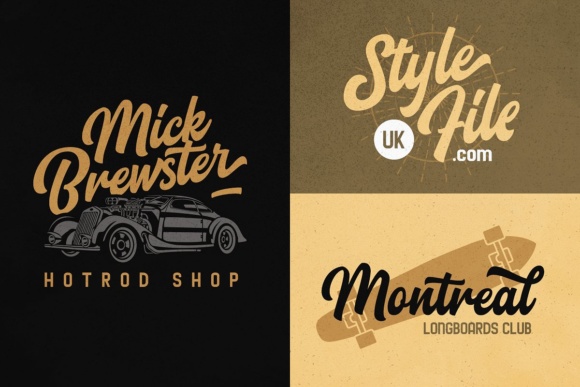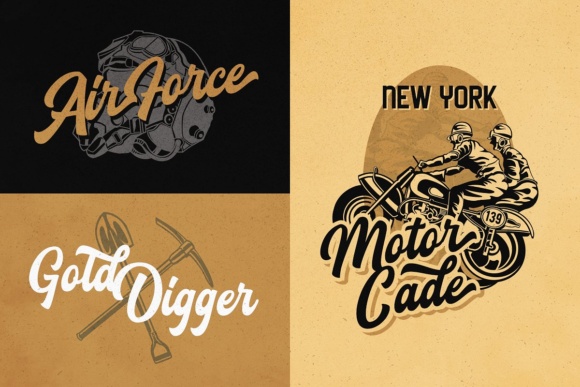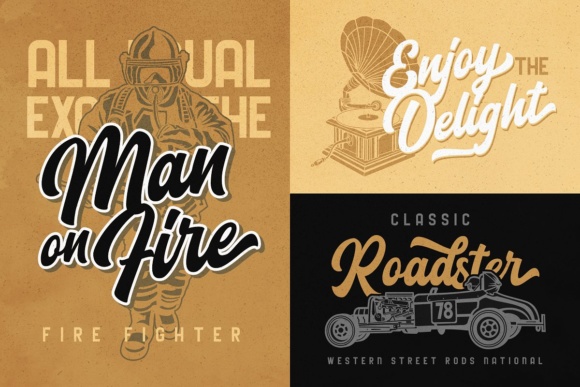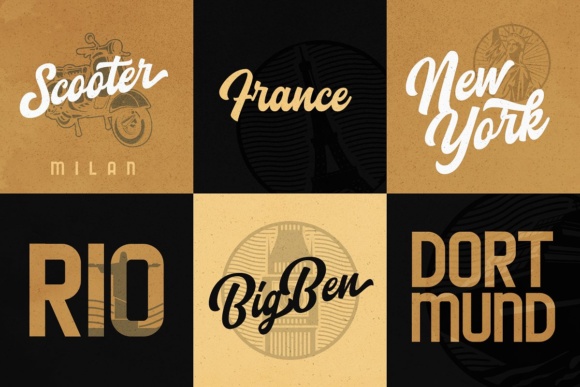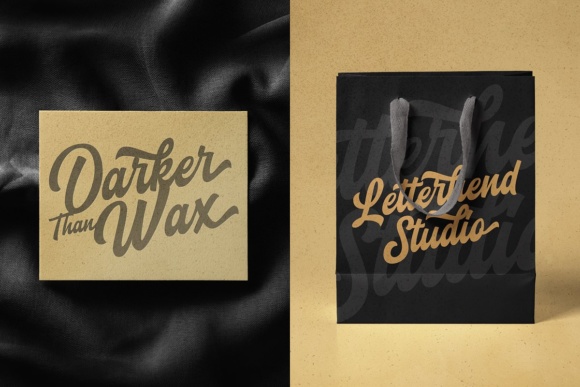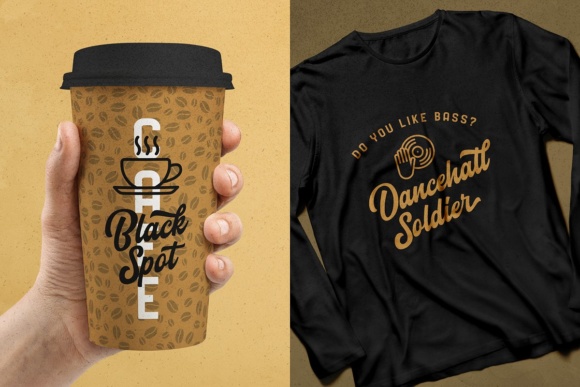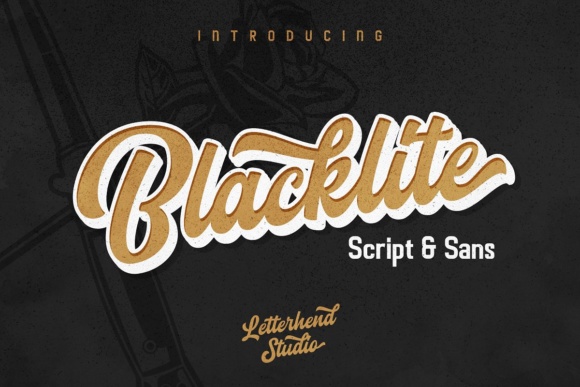
Introducing Blacklite Script Font: The Bold and Beautiful Choice for Designers and Crafters
Are you tired of using the same old fonts for your designs? Do you want to add a touch of elegance and sophistication to your projects? Look no further than the Blacklite Script Font! This stunning bold script font is perfect for making a statement and standing out from the crowd. In this article, we’ll take a closer look at the Blacklite Script Font, its features, and how you can use it to elevate your designs.
What is Blacklite Script Font?
Blacklite is a bold script font that is designed to make a statement. With its unique and elegant lettering style, it’s perfect for use as a logotype, badge, or label. The font features beautiful swashes and flourishes that add a touch of sophistication to any design. Whether you’re a designer, crafter, or DIY enthusiast, Blacklite Script Font is a great choice for anyone looking to add some personality to their projects.
Key Features of Blacklite Script Font
- Bold and Eye-Catching: Blacklite Script Font is a bold and eye-catching font that is sure to grab attention. Its unique lettering style and beautiful swashes make it perfect for use as a logotype or headline.
- Elegant and Sophisticated: The font features elegant swashes and flourishes that add a touch of sophistication to any design. It’s perfect for use on wedding invitations, business cards, and other formal documents.
- High-Quality Design: Blacklite Script Font is designed with high-quality and precision in mind. The font features clean lines, smooth curves, and precise kerning, making it perfect for use in both digital and print designs.
- Versatile: Blacklite Script Font is a versatile font that can be used in a variety of designs, from logos and branding to packaging and advertising.
How to Use Blacklite Script Font
Blacklite Script Font is perfect for a variety of design projects, including:
- Logos and Branding: Use Blacklite Script Font to create a bold and eye-catching logo that stands out from the crowd.
- Wedding Invitations: Add a touch of elegance and sophistication to your wedding invitations with Blacklite Script Font.
- Business Cards: Use Blacklite Script Font to create a professional and stylish business card that makes a lasting impression.
- Packaging: Add some personality to your packaging with Blacklite Script Font. It’s perfect for use on labels, tags, and other packaging materials.
- Advertising: Use Blacklite Script Font to create eye-catching ads that grab attention and drive results.
Tips for Using Blacklite Script Font
Here are some tips for using Blacklite Script Font:
- Use it Sparingly: Blacklite Script Font is a bold font, so use it sparingly to avoid overwhelming your design.
- Pair it with a Simple Font: Pair Blacklite Script Font with a simple font to create contrast and make your design stand out.
- Experiment with Colors: Experiment with different colors to find the perfect combination that works with your design.
- Pay Attention to Kerning: Pay attention to kerning to ensure that your text looks professional and polished.